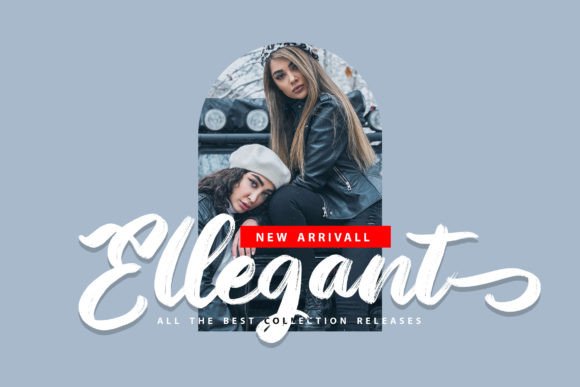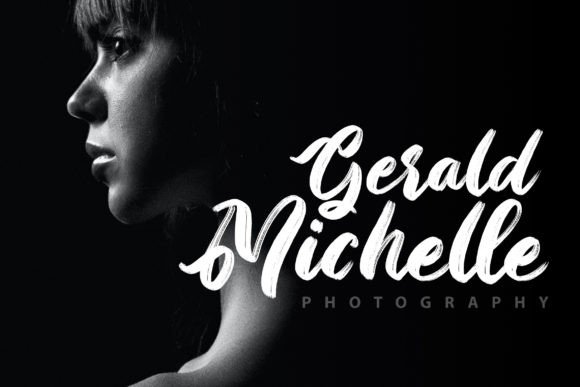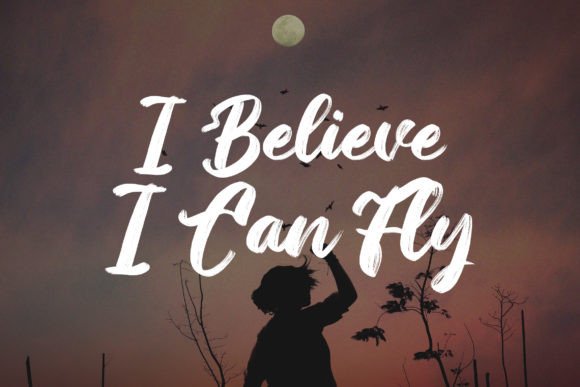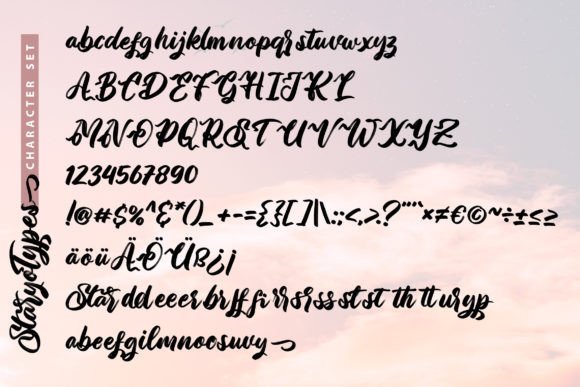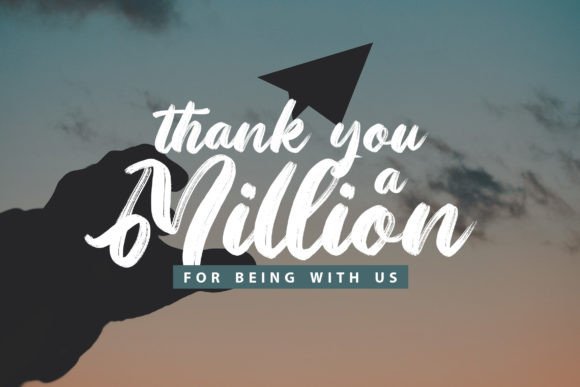
Staryo Types Font
Elevate Your Designs with Staryo Types Font
Staryo Types Font is a digitally brushed script font that beautifully combines the elegance of calligraphy with a modern digital touch. Its smooth, flowing lines and dynamic strokes make it perfect for adding personality and style to your creative projects. Whether you are designing wedding invitations, branding materials, or social media content, Staryo TypesFont enhances your work with a sophisticated, handcrafted feel.
This font balances artistic flair and readability, making it suitable for both large headlines and smaller text areas.
Versatile Uses for Staryo Types Font
Staryo TypesFont shines in a variety of applications, including:
• Wedding invitations and greeting cards
• Business branding and logos
• Product packaging and labels
• Posters and promotional materials
• Social media graphics and inspirational quotes
• Business cards and stationery
Its brushed calligraphy style adds warmth and elegance, helping your designs stand out with a unique, handcrafted look.
User-Friendly and Feature-Rich
The well-kerned characters and smooth letter spacing enhance readability and aesthetics, ensuring your projects look polished and professional.
Why Designers Choose Staryo Types Font
Designers appreciate Staryo TypesFont for its perfect mix of classic calligraphy and modern brush script. It works well in both formal and casual contexts, giving your designs a lively yet sophisticated feel.
Whether you are creating elegant invitations or eye-catching branding, this font will bring personality and charm to your typography.